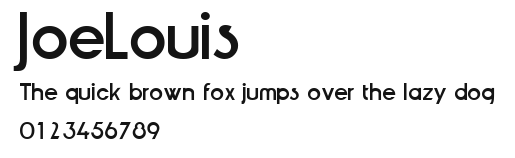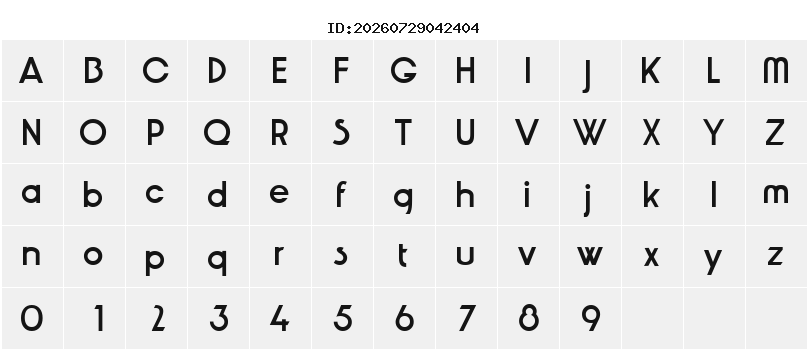
• Font Name: JoeLouis
About JoeLouis.ttf
JoeLouis.ttf is a modern, elegant sans-serif font designed for ultimate readability and visual harmony. Perfect for branding, headlines, web design, and print materials.